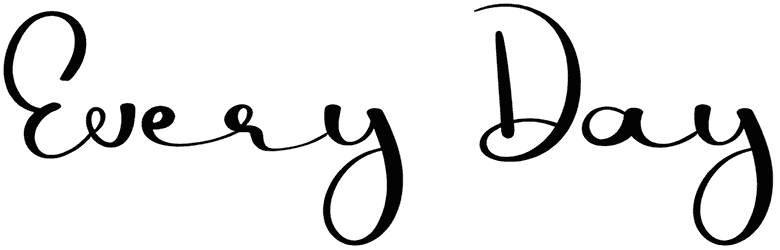
Every Day Font
Twist the lines and design your words with an elegant artistic dance of this handwritten font, which is called Every Day. For cosmetic packaging, wedding cards, T-shirts, branding, or a lot more, the same, it would definitely be a booming event.
As a script font, Every Day has a deep curly face, especially in lowercase letters, which makes it a little unreadable. Anyway, if you use it every day, you won’t get tired.
Every Day is a thin lettered and graceful script font. Fall for its ravishing style and use it to create gorgeous wedding invitations, beautiful stationary art, eye-catching social media posts, and much more!